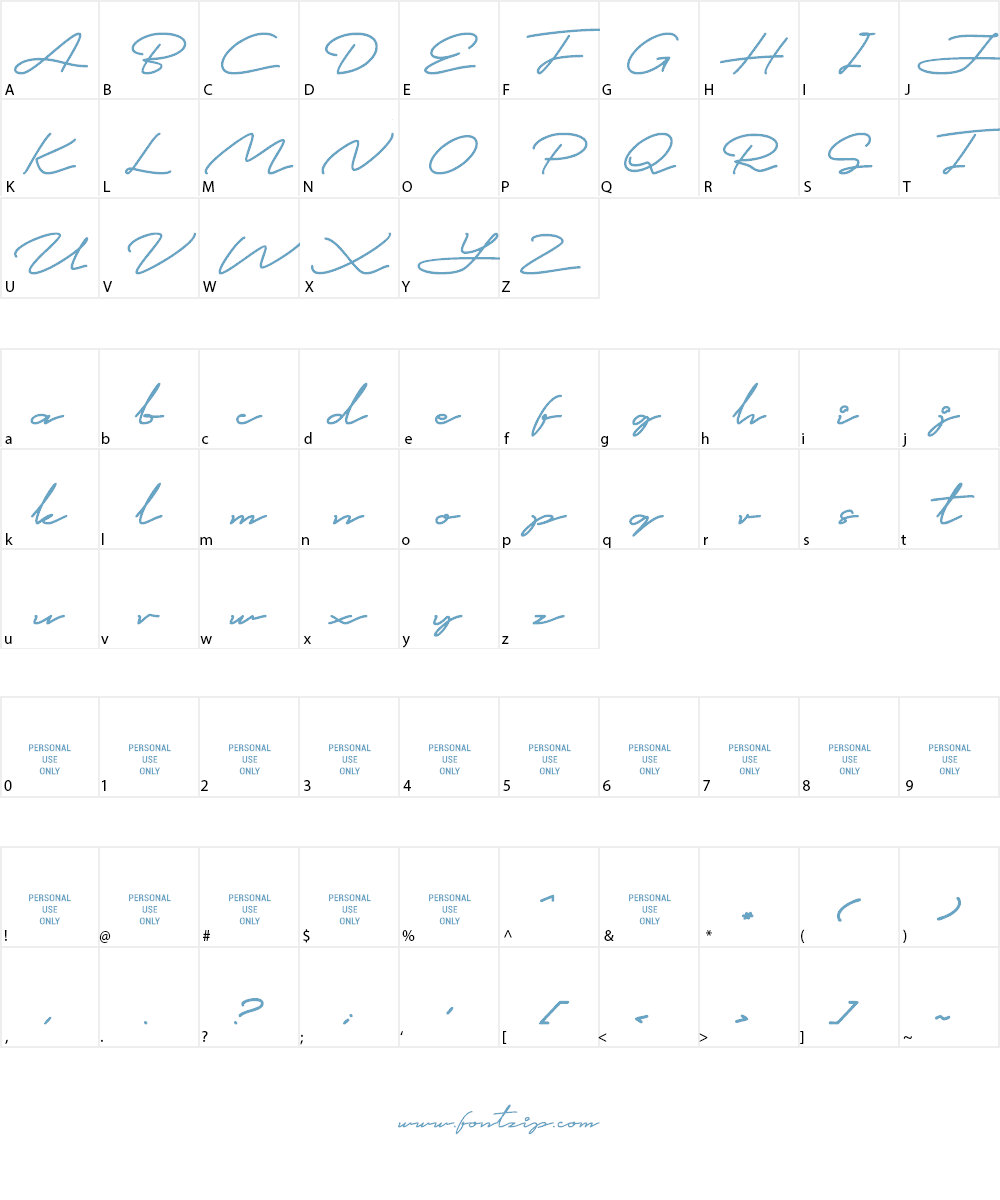
Simplicy was made from an actual hand writing so it has a natural and professional Impression. Perfect to be used for signatures, wedding invitations, greeting cards, logos and much more!